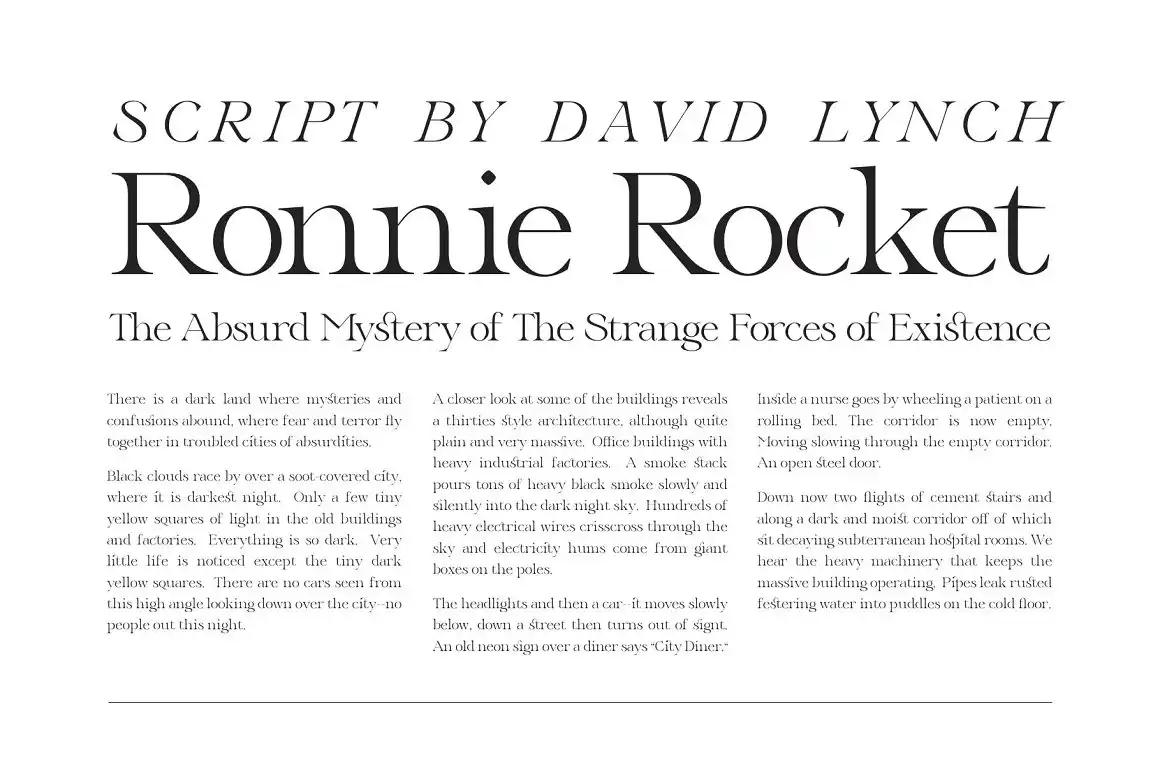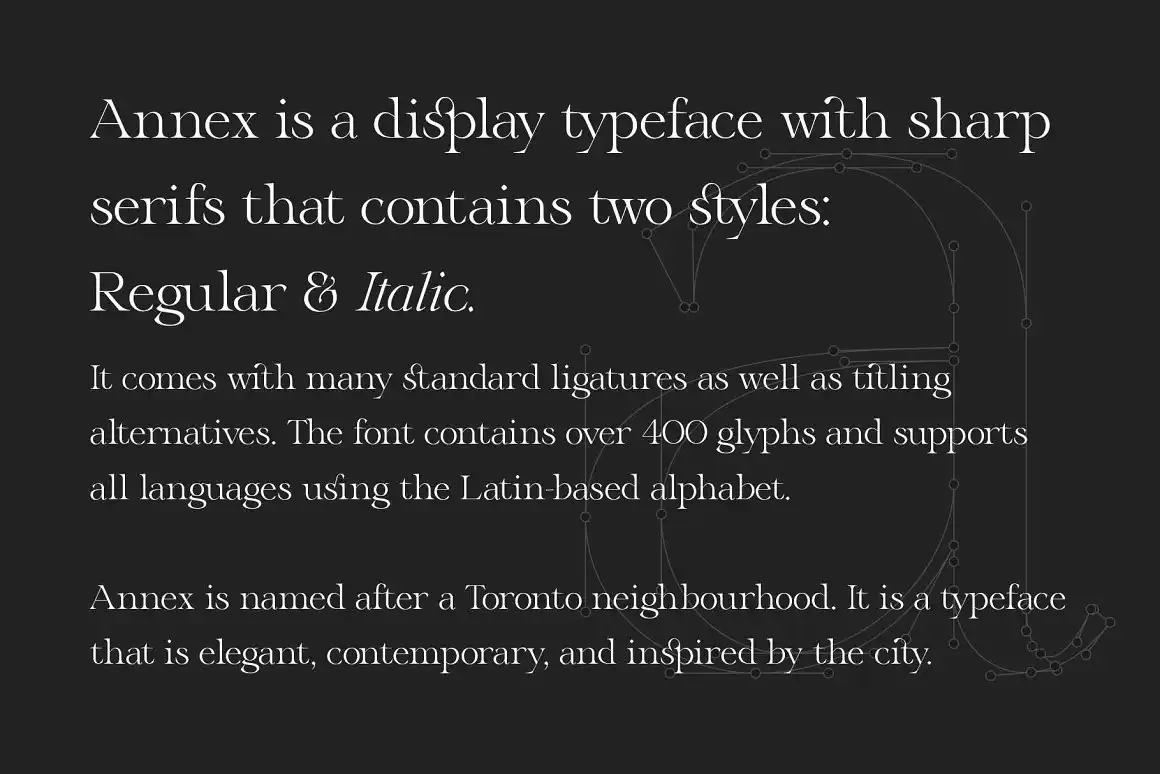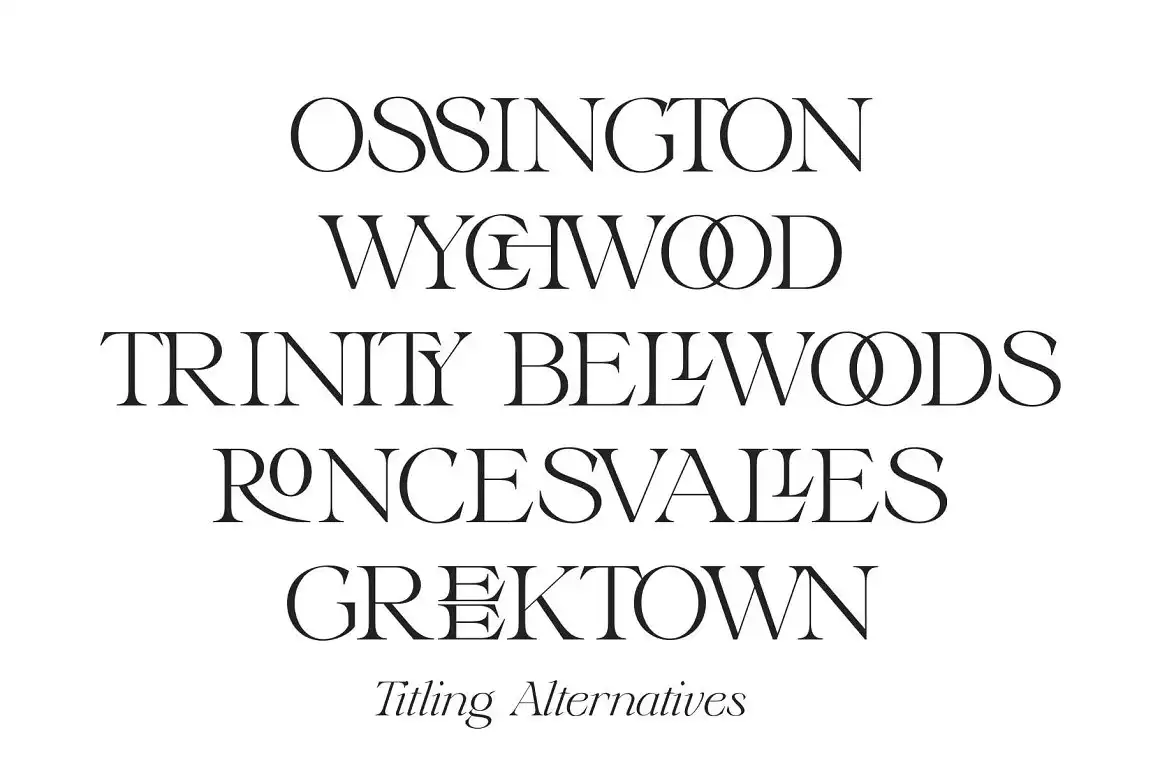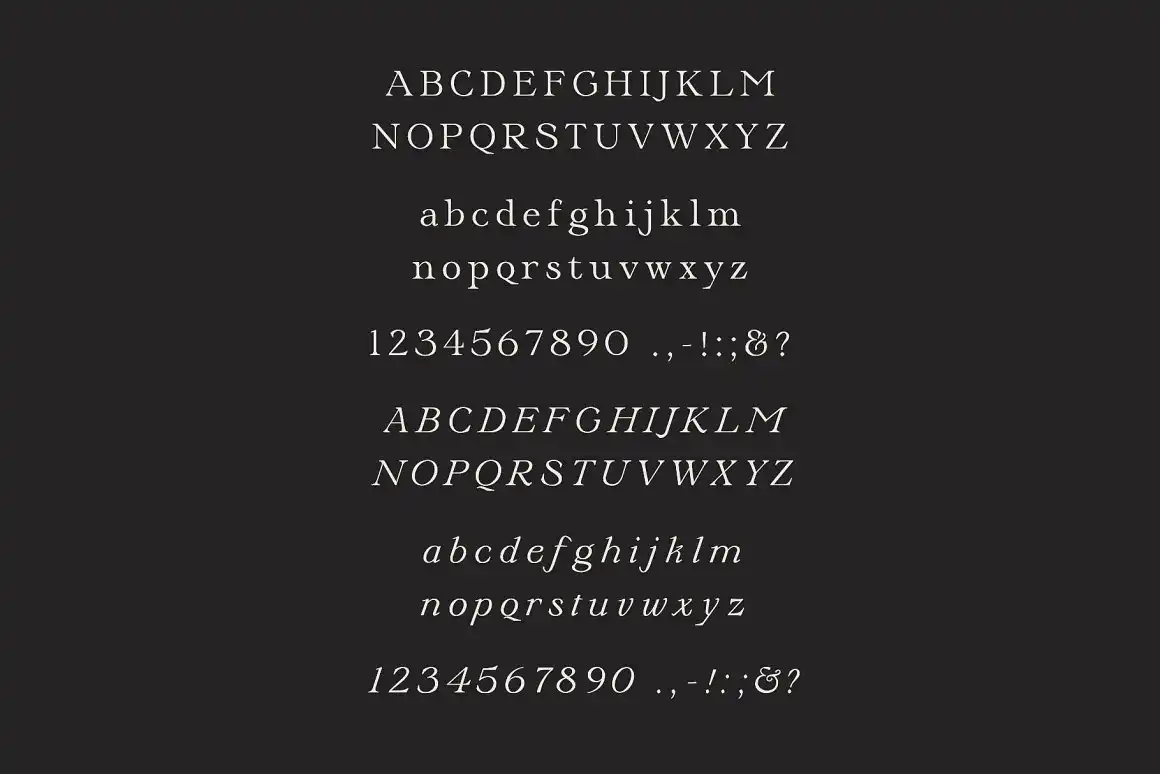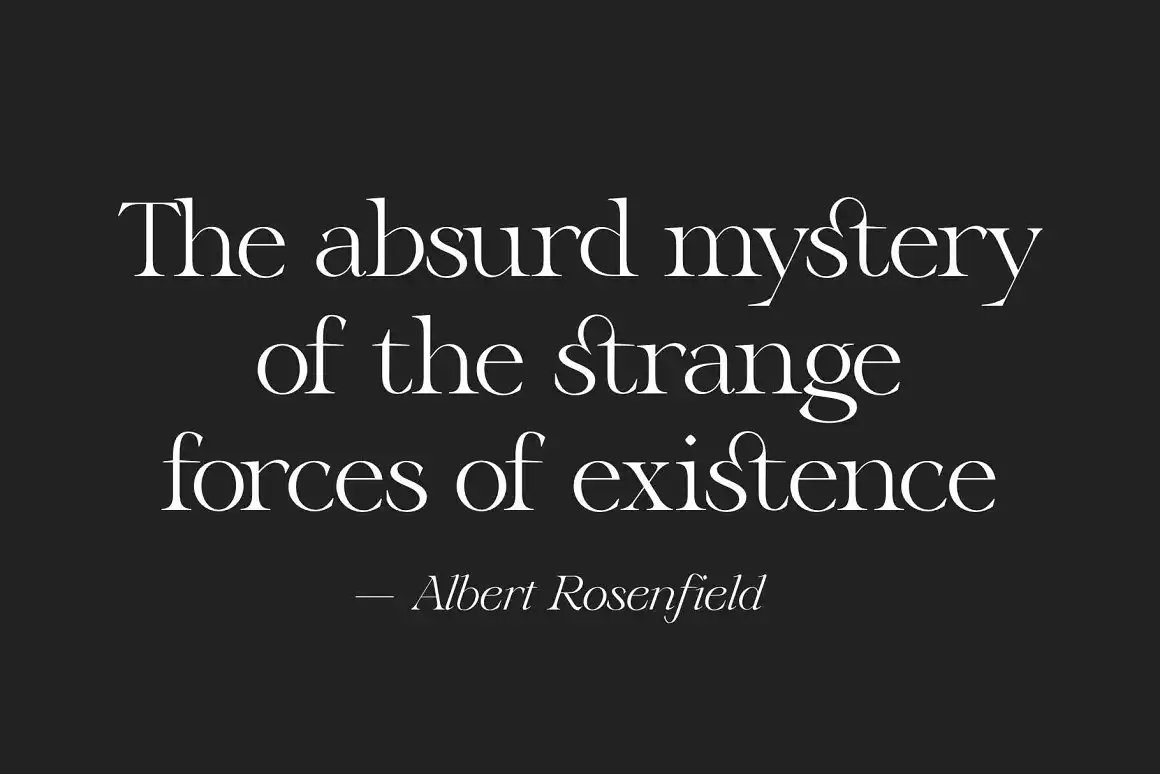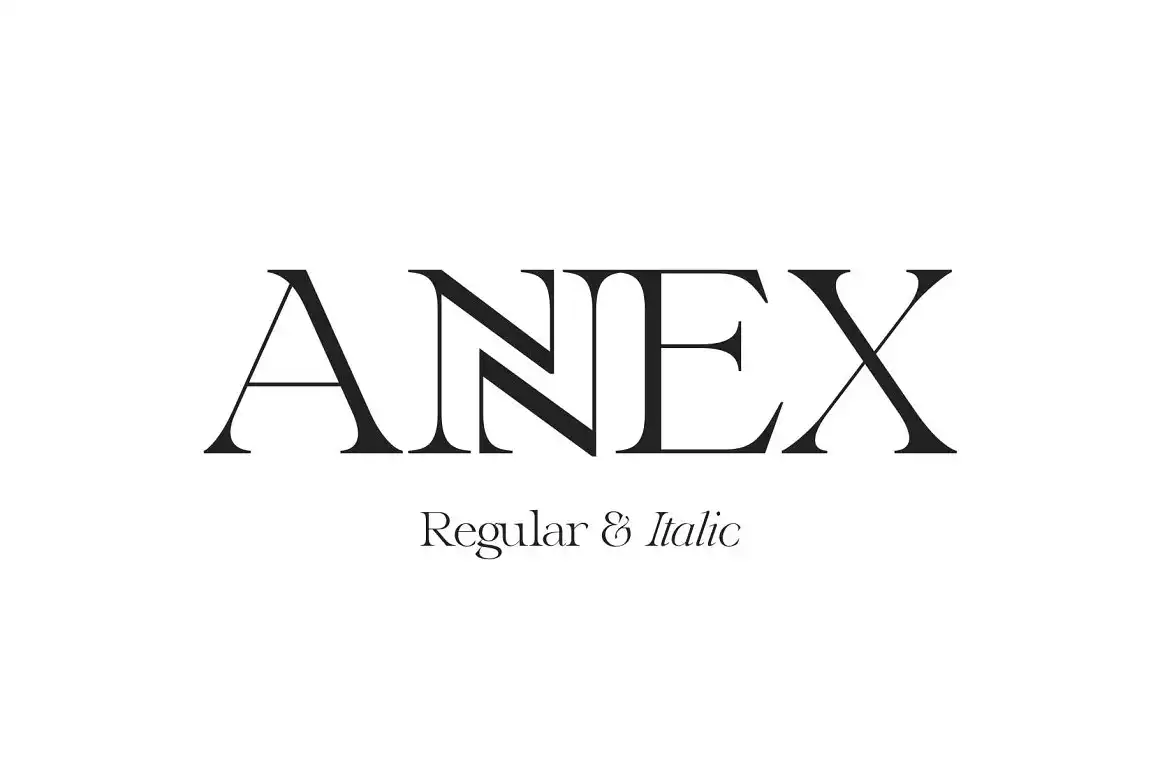
Looking for a stunning display font that brings elegance and modernity to your designs? 🌟 The Annex font is a digital download that offers instant access, perfect for creatives who want to elevate their typography game!
Annex is a beautifully crafted display typeface featuring sharp serifs and two distinct styles: Regular & Italic. With over 400 glyphs, it supports all languages using the Latin-based alphabet, making it a versatile choice for any project. Inspired by a vibrant Toronto neighborhood, this font embodies a contemporary aesthetic that will captivate your audience.
- Stylish Design: The sharp serifs and elegant curves make your text stand out, perfect for headings and titles.
- Multiple Styles: Choose between Regular and Italic to fit your design needs, adding variety to your typography.
- Standard Ligatures: Enjoy a seamless reading experience with numerous ligatures that enhance the flow of your text.
- Comprehensive Glyph Set: With over 400 glyphs, Annex ensures you have the characters you need for any language using the Latin alphabet.
What does Annex mean? The term ‘annex’ often refers to an addition or an extension, much like how this font can add a stylish touch to your designs!
Are there any ligatures in Annex? Yes! Annex comes with many standard ligatures to enhance your typography.